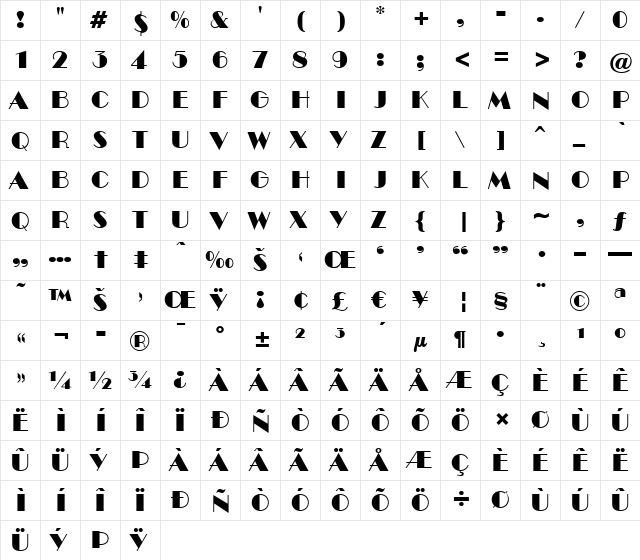
a_Bento Regular
| Designer | W.Chufarofsky & M.Slutsker |
Design Context for a_Bento Typeface
a_Bento is a composed and adaptable typeface that performs quietly and consistently across a wide range of design contexts.